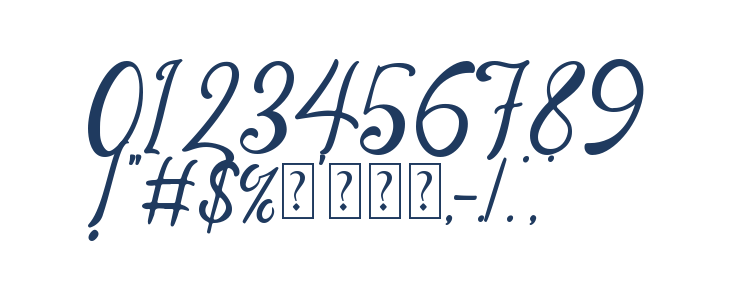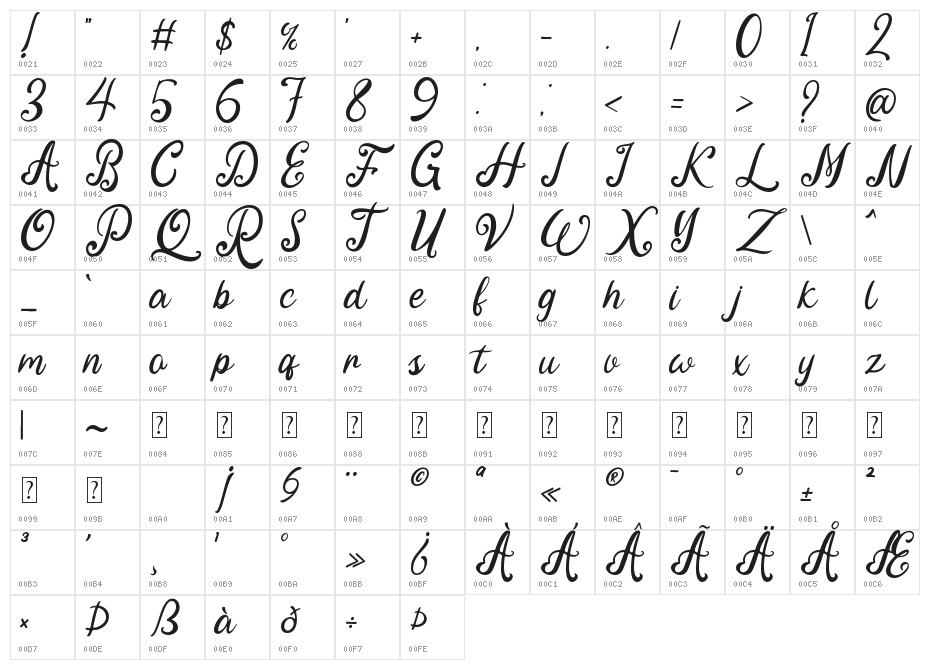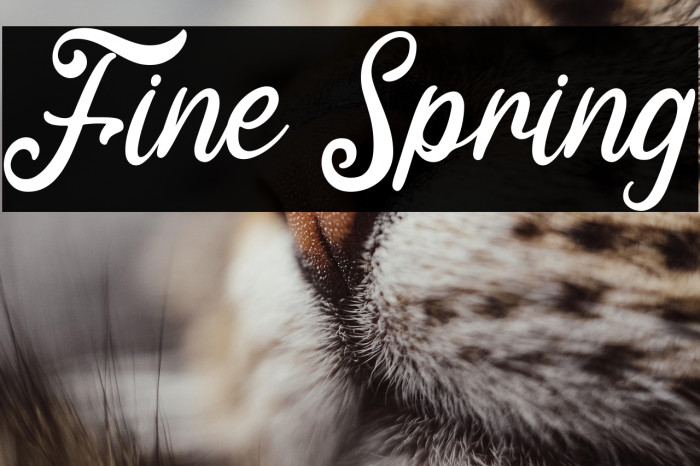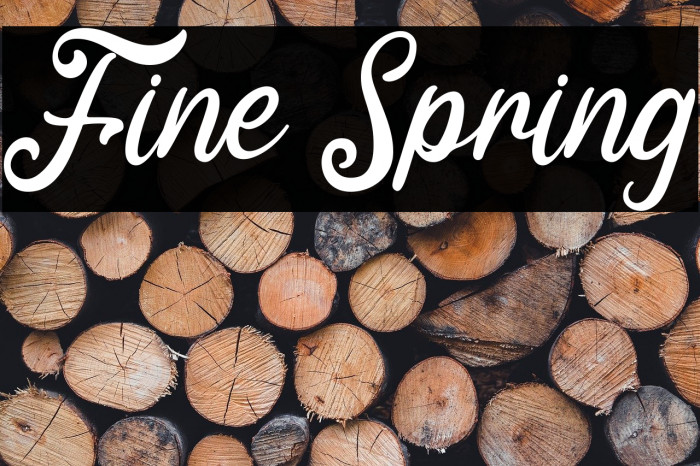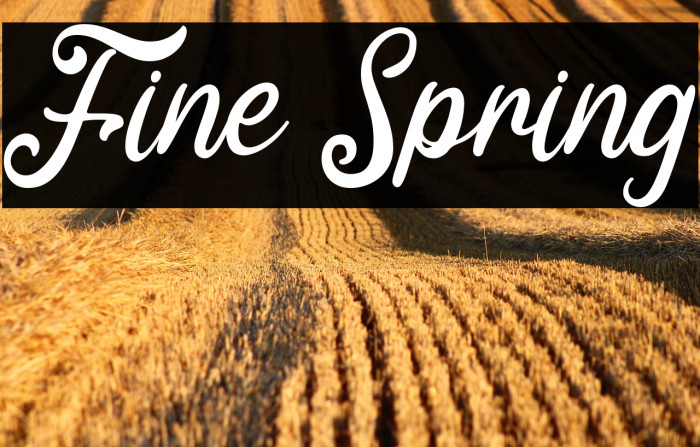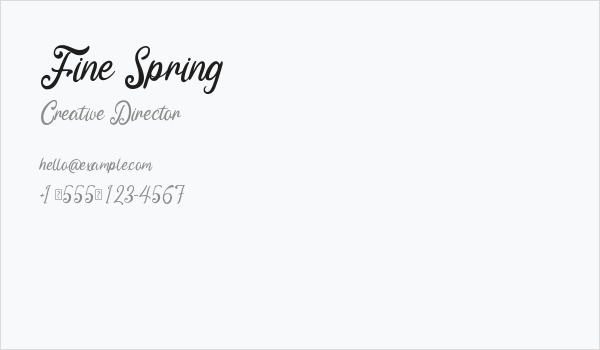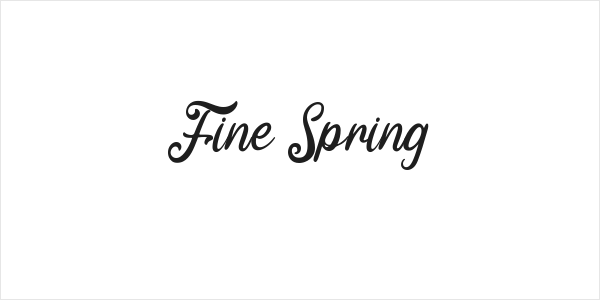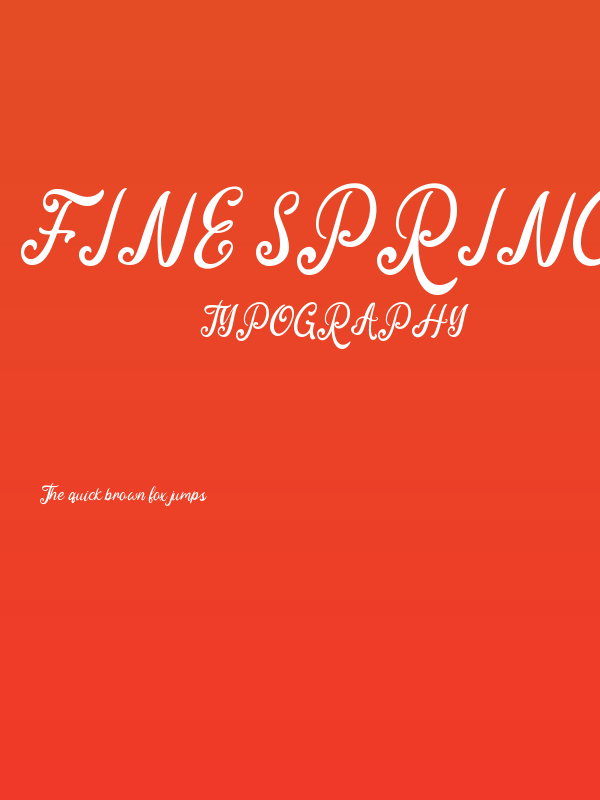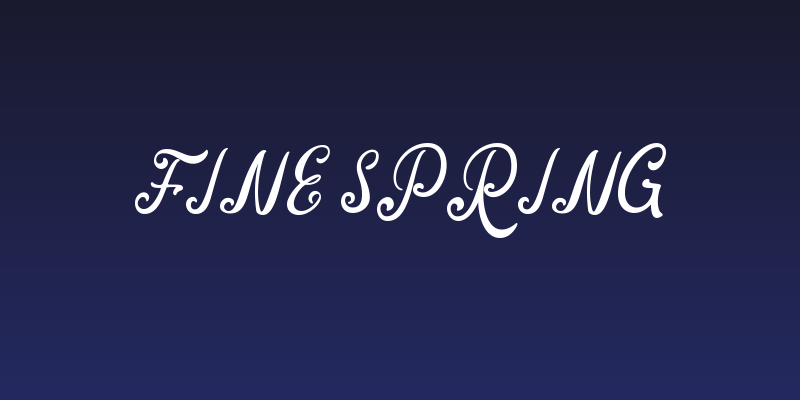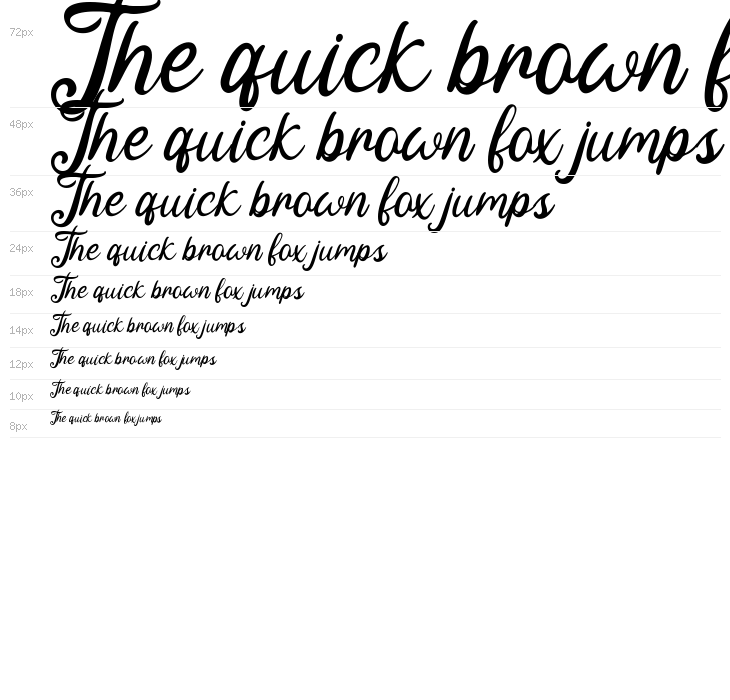
Fine Spring Font
Fine Spring Description
This font exudes a playful and elegant script style, characterized by its flowing, cursive letters that mimic the fluidity of handwriting. The uppercase letters are adorned with subtle flourishes, adding a touch of sophistication, while the lowercase letters maintain a smooth and consistent flow. The numerals and special characters are designed to complement the overall aesthetic, ensuring a cohesive look across all text elements. The font's design is both decorative and legible, making it suitable for a variety of creative applications.
| Use Case | Logos, Invitations, Decorative Text |
| Proposed Projects | Ideal for wedding invitations, greeting cards, branding, and elegant packaging designs. |